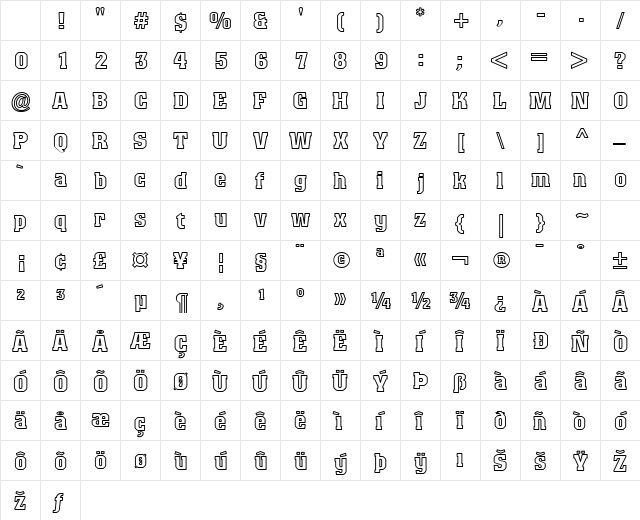
Complete Titanic Outline glyph index. Displaying only characters natively supported by Titanic Outline font.
Titanic is built around its visual character rather than neutral utility - its distinctive forms are designed to make an impression at display sizes.
Font Pairing: Pair with a clean neutral sans-serif for body copy to let Titanic's character lead without overwhelming the composition.
Pro Tip: Use Titanic exclusively at display sizes - it was designed to be seen, not read at length. Let a neutral companion handle body copy.